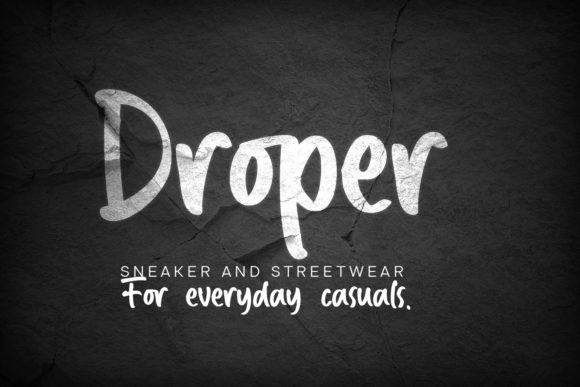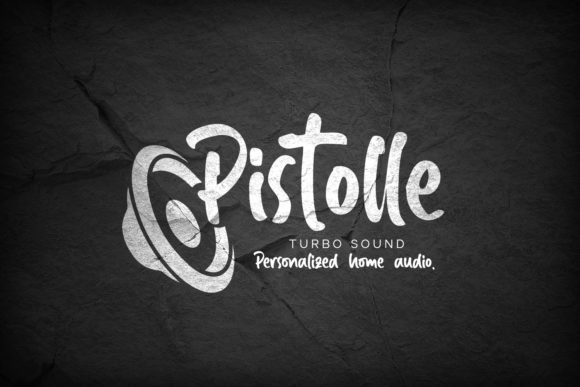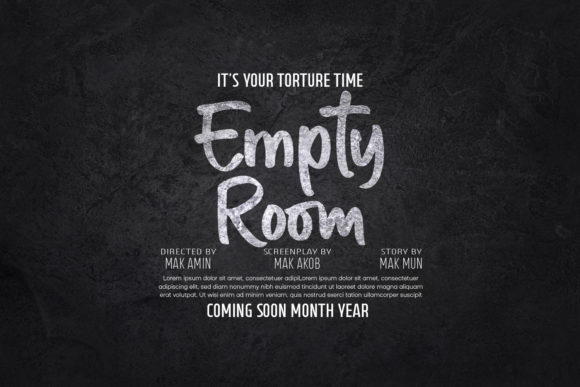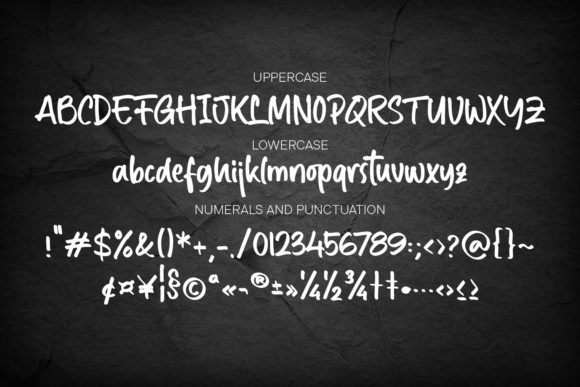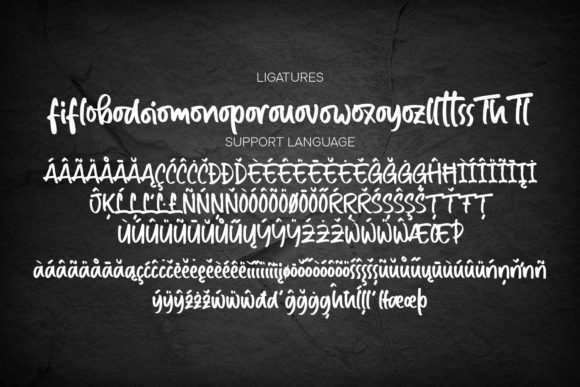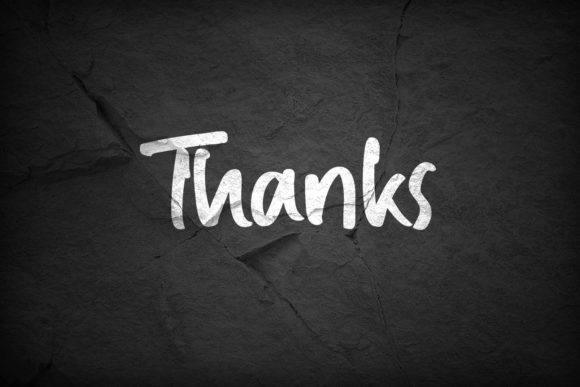
Introducing Appetizer Font: The Perfect Addition to Your Design Collection
Are you a designer or crafter looking for a unique and trendy font to elevate your projects? Look no further than Appetizer Font! This simple yet stylish handwritten font is perfect for adding a personal touch to a wide range of designs, from branding and packaging to invitations and crafts.
The Charm of Appetizer Font
Appetizer Font boasts a natural and unique style that makes it incredibly versatile. Its handwritten charm adds a touch of warmth and personality to any design, making it perfect for projects that require a more approachable and human feel. Whether you’re creating a logo, business card, or social media graphic, Appetizer Font is sure to make your design stand out.
What Makes Appetizer Font So Special?
- Unique Style: Appetizer Font has a distinct and eye-catching style that sets it apart from other fonts. Its natural, handwritten look makes it perfect for designs that require a personal touch.
- Versatility: Appetizer Font is incredibly versatile and can be used in a wide range of designs, from formal to informal, and from digital to print.
- Easy to Read: Despite its unique style, Appetizer Font is easy to read and understand, making it perfect for body text and headings.
- Highly Customizable: Appetizer Font can be easily customized to fit your design needs. You can adjust the size, color, and style to create a unique look that suits your project.
How to Use Appetizer Font in Your Designs
Appetizer Font is perfect for a wide range of designs, including:
- Branding and Packaging: Use Appetizer Font to create unique and eye-catching logos, labels, and packaging designs.
- Invitations and Stationery: Add a personal touch to your invitations, business cards, and stationery with Appetizer Font.
- Social Media Graphics: Use Appetizer Font to create engaging and shareable social media graphics, such as quotes, promotions, and announcements.
- Crafts and DIY Projects: Appetizer Font is perfect for crafters and DIY enthusiasts who want to add a personal touch to their projects, such as handmade cards, gift tags, and decorations.
Tips and Tricks for Getting the Most Out of Appetizer Font
Here are a few tips and tricks to help you get the most out of Appetizer Font:
- Experiment with Different Sizes and Styles: Don’t be afraid to experiment with different sizes and styles of Appetizer Font to find the perfect look for your design.
- Combine with Other Fonts: Appetizer Font pairs well with other fonts, so don’t be afraid to combine it with other fonts to create a unique look.
- Use it for Headings and Titles: Appetizer Font is perfect for headings and titles, so use it to add a touch of personality to your design.
In conclusion, Appetizer Font is a simple yet stylish handwritten font that is perfect for designers and crafters who want to add a personal touch to their projects. Its unique style, versatility, and ease of use make it an excellent addition to any design collection. So why wait? Download Appetizer Font today and start creating stunning designs that stand out from the crowd!